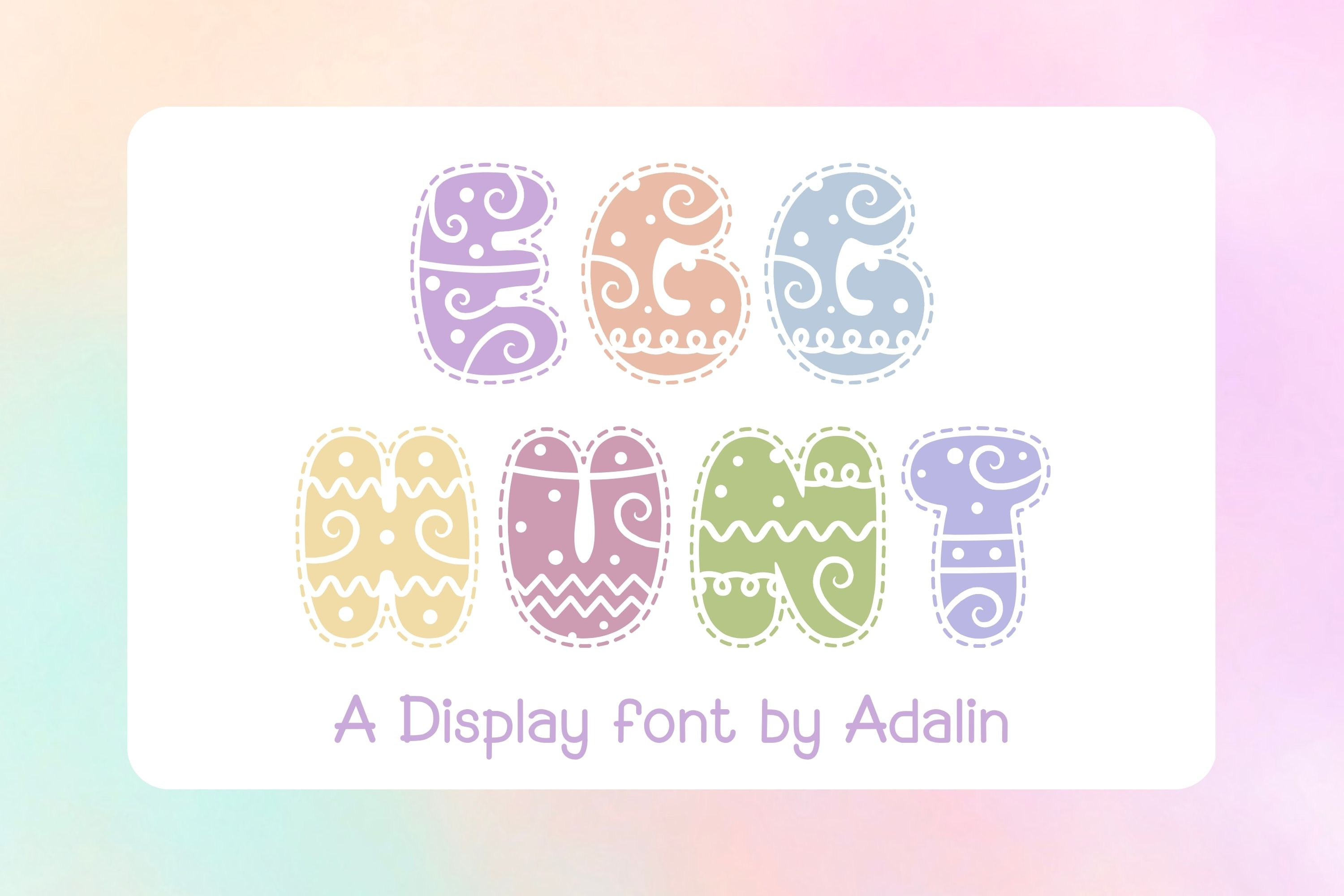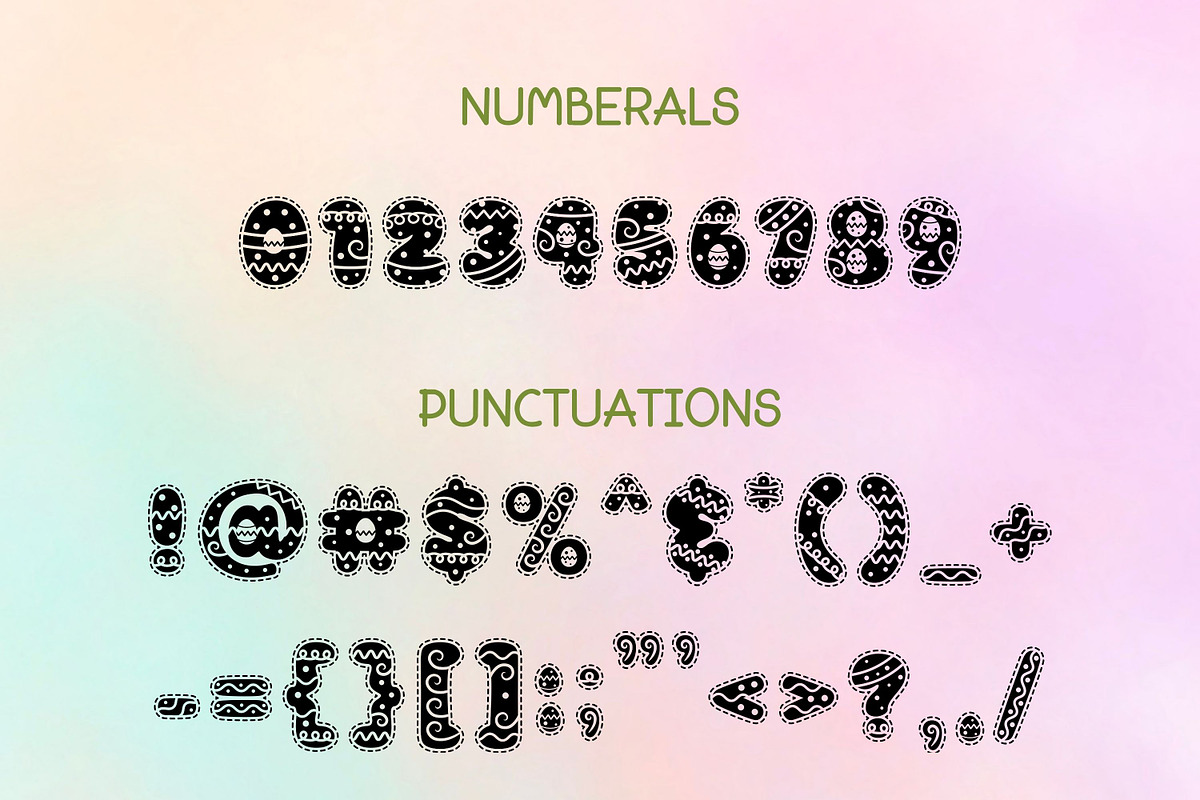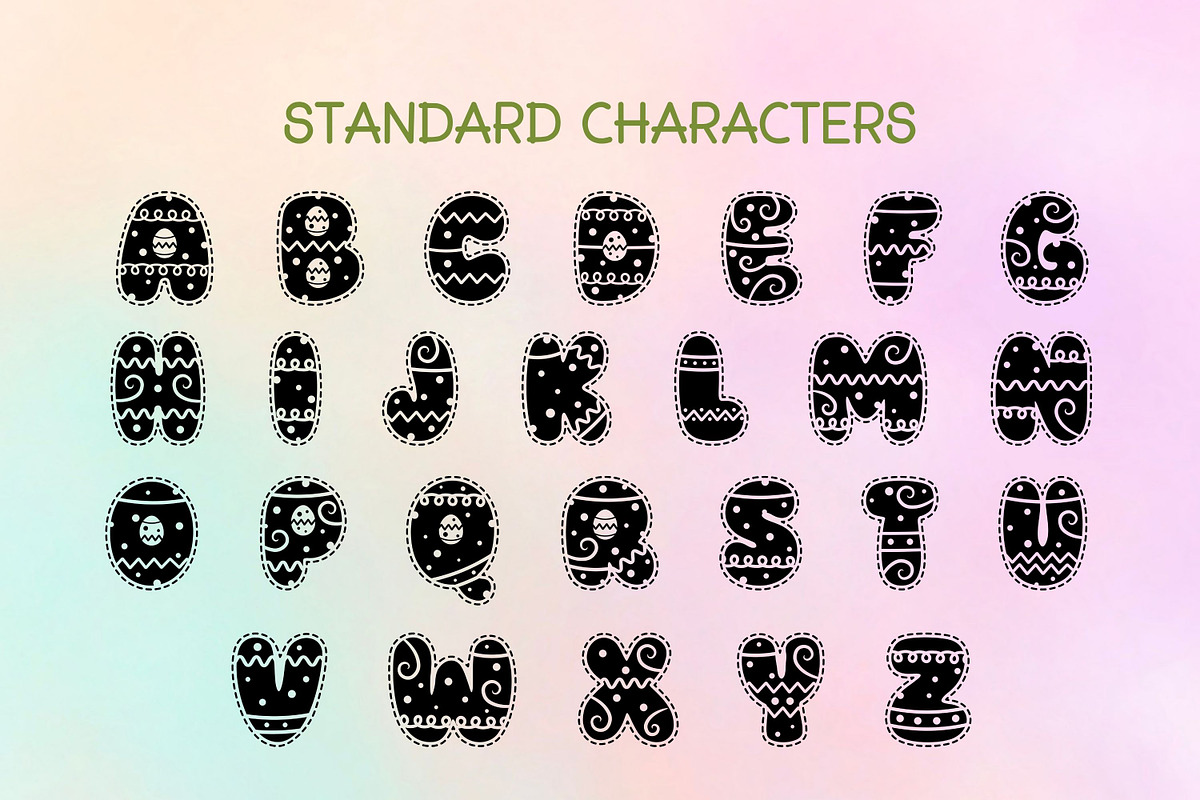
Egg Hunt - Display Font
Egg Hunt Display Font is a cute and playful Easter-inspired display font decorated with egg patterns, dots, swirls, and stitched outlines. Each character looks like a colorful Easter egg, making this font perfect for spring, holiday, and kids-themed designs.
This font is designed to bring a fun and cheerful feeling to your projects. It works great for Easter designs, stickers, sublimation, greeting cards, party decorations, posters, and social media graphics.
The font includes uppercase, numbers, and punctuation so you can create complete and creative typography easily. The decorative egg style makes your text stand out and look adorable.
Perfect for Easter, egg hunt, spring projects, kids products, cute designs, and festive typography.
Add a cute Easter feeling to your design with Egg Hunt Display Font 🥚✨